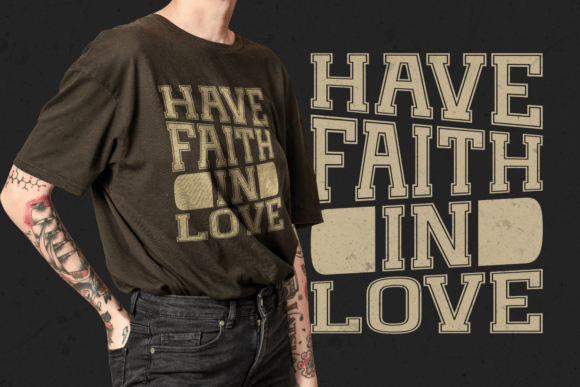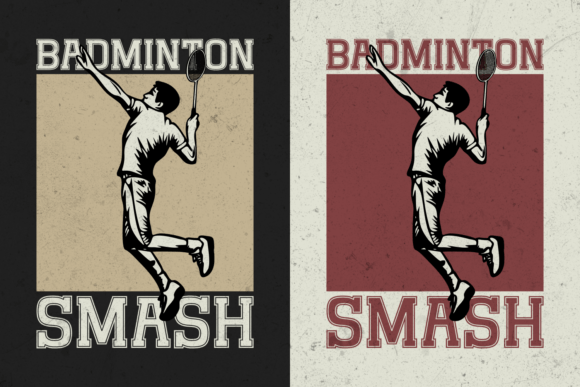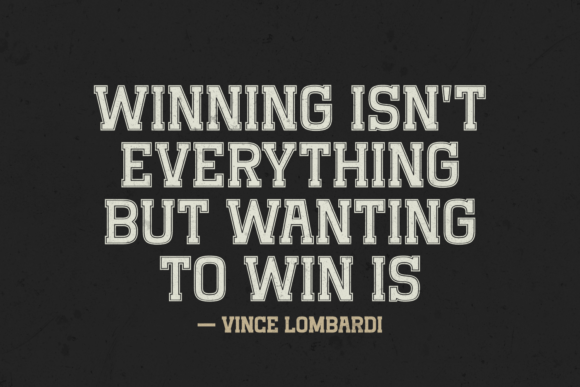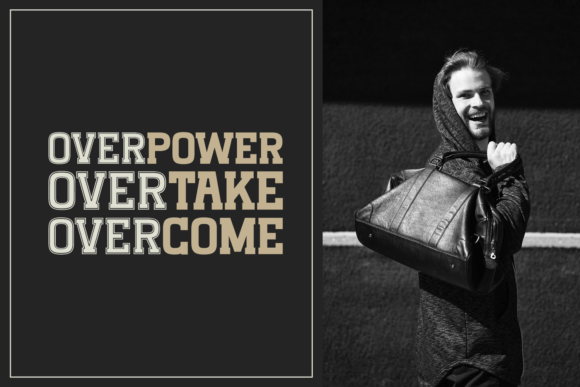
Introducing Classic Vintage Font: The Ultimate Retro Display Font
Are you looking for a font that adds a touch of nostalgia and playfulness to your designs? Look no further than Classic Vintage Font, a versatile and retro display font perfect for a wide range of applications. From greeting cards to headlines, and many more, this font is sure to bring a vintage charm to your projects.
What is Classic Vintage Font?
Classic Vintage Font is a carefully crafted display font that embodies the spirit of retro typography. Its unique design combines classic elements with a modern twist, making it perfect for designers and crafters looking to add a touch of vintage flair to their work. The font’s playful and elegant feel makes it suitable for a variety of projects, from formal to informal.
Key Features of Classic Vintage Font
- Versatile: Classic Vintage Font is designed to be versatile, making it perfect for a wide range of applications, including greeting cards, headlines, posters, and more.
- Playful: The font’s playful feel makes it ideal for designs that require a touch of whimsy and fun.
- Retro: Classic Vintage Font’s retro design is inspired by classic typography, making it perfect for designers looking to add a vintage touch to their work.
- Elegant: Despite its playful feel, Classic Vintage Font remains elegant and sophisticated, making it suitable for formal projects.
Uses of Classic Vintage Font
Classic Vintage Font is perfect for a wide range of applications, including:
- Greeting Cards: Add a touch of vintage charm to your greeting cards, making them stand out from the crowd.
- Headlines: Use Classic Vintage Font to create eye-catching headlines that grab attention.
- Posters: Create stunning posters with a retro feel using Classic Vintage Font.
- Logos: Use the font to create unique and memorable logos that reflect your brand’s personality.
- Social Media Graphics: Add a touch of vintage flair to your social media graphics, making them stand out on crowded feeds.
Why Choose Classic Vintage Font?
There are many reasons why Classic Vintage Font stands out from the crowd:
- Unique Design: The font’s unique design sets it apart from other display fonts, making it perfect for designers looking for something new and exciting.
- High-Quality: Classic Vintage Font is crafted with high-quality design principles, ensuring that it looks great in any size or application.
Tips for Using Classic Vintage Font
Here are some tips for getting the most out of Classic Vintage Font:
- Experiment with Sizes: Classic Vintage Font looks great in a variety of sizes, so don’t be afraid to experiment to find the perfect fit for your project.
- Play with Colors: The font works well with a range of colors, so try out different combinations to find the one that works best for your design.
- Mix and Match: Don’t be afraid to mix and match Classic Vintage Font with other fonts to create a unique look.